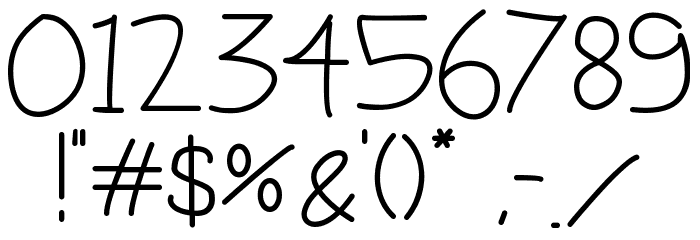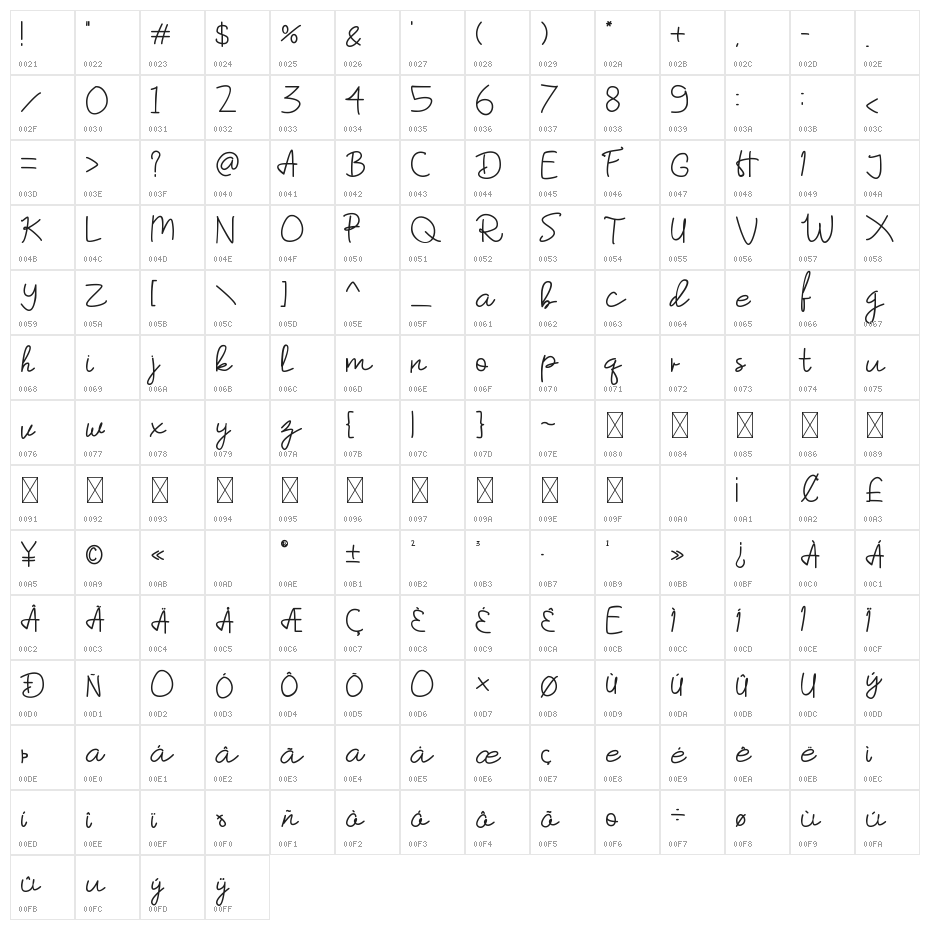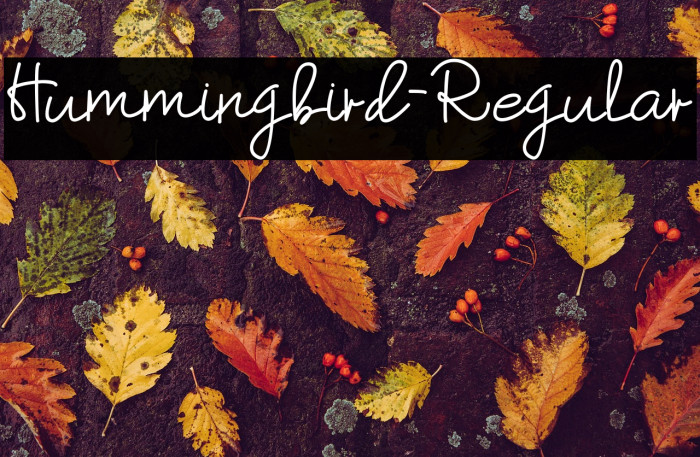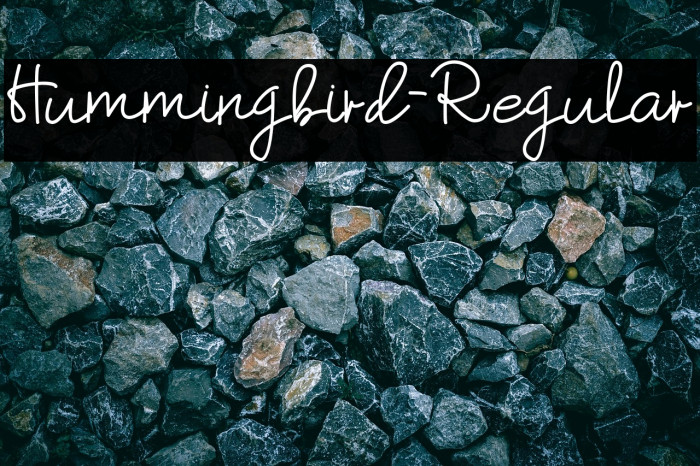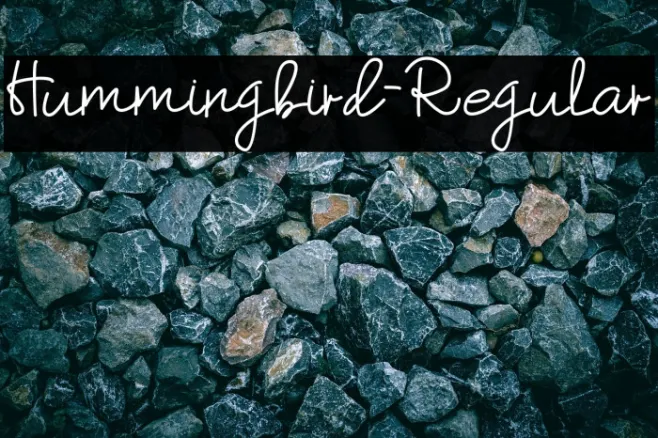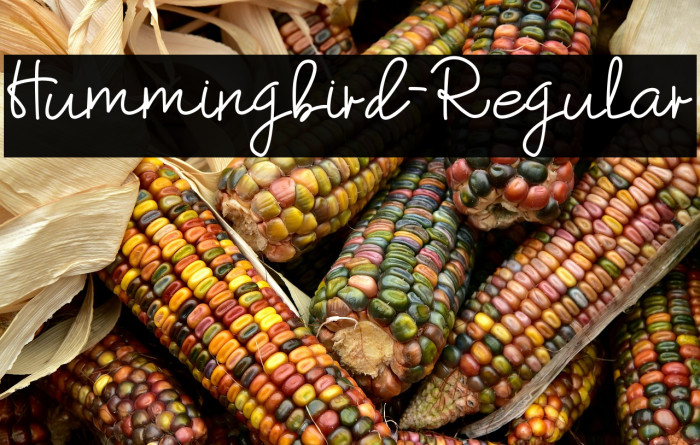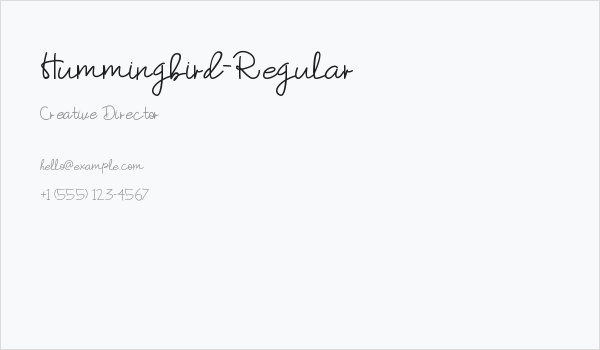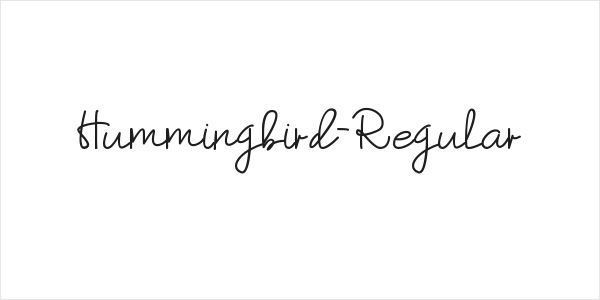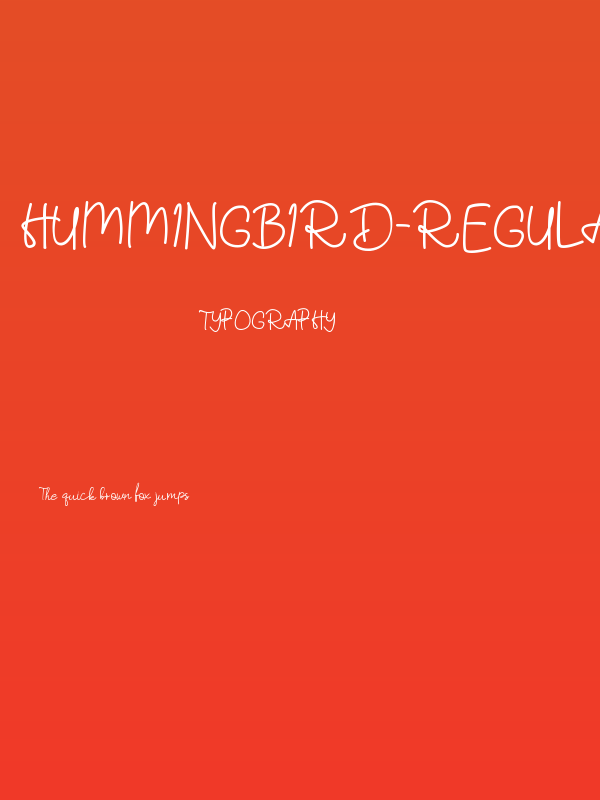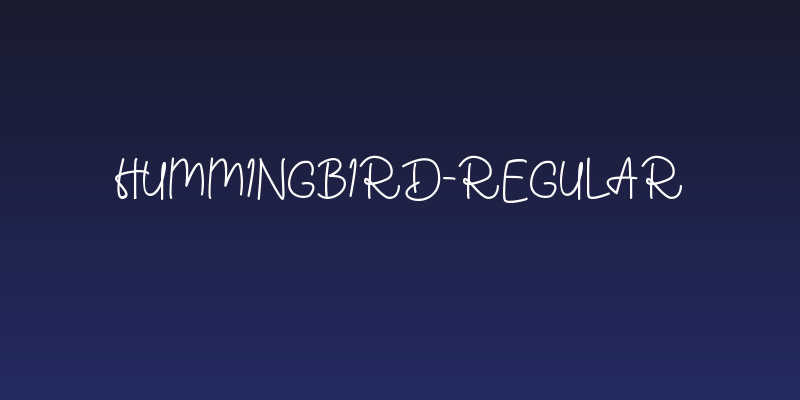
Hummingbird-Regular Font
Hummingbird-Regular Description
This font features a playful and flowing script style, characterized by its smooth, connected strokes that mimic the fluidity of handwriting. The uppercase letters are slightly more structured, while the lowercase letters exhibit a more casual and relaxed appearance. The numerals and special characters maintain the same handwritten charm, adding a cohesive look across all characters. The overall design is elegant yet informal, making it suitable for a variety of creative applications. The font's legibility is enhanced by its consistent stroke width and balanced spacing, ensuring clarity even in longer texts.
| Overall Style | Casual, Handwritten |
| Use Case | Logos, Invitations, Greeting cards |
| Proposed Projects | Ideal for invitations, greeting cards, personal branding, and creative projects that require a personal touch. |